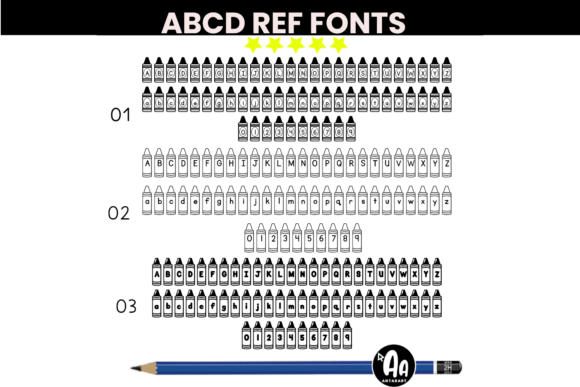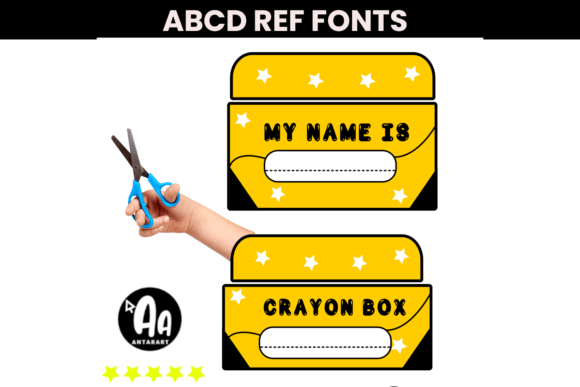
Do you remember the joy of holding a crayon for the first time and watching your imagination come to life on a blank piece of paper? For many of us, that moment sparked a lifelong love of creativity and self-expression. Now, you can bring that same magic to your classroom, homeschool activities, and kids’ projects with the Abcd Ref Crayon Shape Font.
This vibrant 3-in-1 font set includes three unique crayon-themed font styles, each designed to add charm and energy to your educational and craft designs. With its playful, pencil-inspired designs, the Abcd Ref Crayon Shape Font is a perfect choice for creating engaging back-to-school displays, custom activities, and materials for young learners. Whether you’re a teacher, homeschooler, or creative crafter, this font set is a valuable addition to your design toolkit.
Key Features of Abcd Ref Crayon Shape Font
- Font Style: A unique, hand-drawn crayon shape font that adds a playful touch to designs.
- Unique Characteristics: Features a distinctive crayon shape design, making it ideal for children’s books, educational materials, and playful designs.
Abcd Ref Crayon Shape Font Review
Overall, I’m quite impressed with the Abcd Ref Crayon Shape Font. It’s a fun and playful font that’s sure to add a pop of personality to any design project. Here are some of the things that stand out:
- ✨ Unique Crayon Shape Character Set: The font includes a range of unique crayon-shaped characters that add a whimsical touch to text. These characters can be used to create a sense of nostalgia and playfulness.
- ✨ Versatile: The font can be used for a variety of projects, from children’s books to social media graphics and even advertising campaigns.
- ✨ Easy to Read: Despite its playful nature, the font is still easy to read and understand, making it a great choice for designers who want to convey a message without sacrificing legibility.
- ⚠️ Limited Language Support: The font only supports a limited range of languages, which may be a issue for designers who need to create content in multiple languages.
- ⚠️ Not Suitable for Formal Projects: While the font is great for playful projects, it may not be the best choice for formal or professional projects where a more traditional font is needed.
Overall, I’d say the Abcd Ref Crayon Shape Font is a great choice for designers who want to add a bit of fun and personality to their projects. Just be aware of its limitations and use it accordingly.
Abcd Ref Crayon Shape Font is ideal for creating playful and whimsical designs. It’s perfect for:
1. Children’s books and educational materials.
2. Party invitations and event decorations.
3. Social media graphics and advertisements.
4. Infographics and educational posters.
Remember to experiment with different font sizes, styles, and colors to get the most out of Abcd Ref Crayon Shape Font.